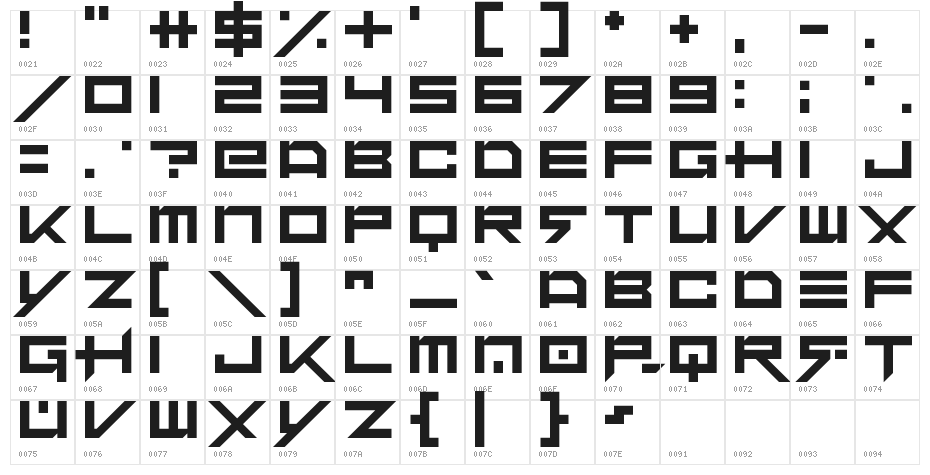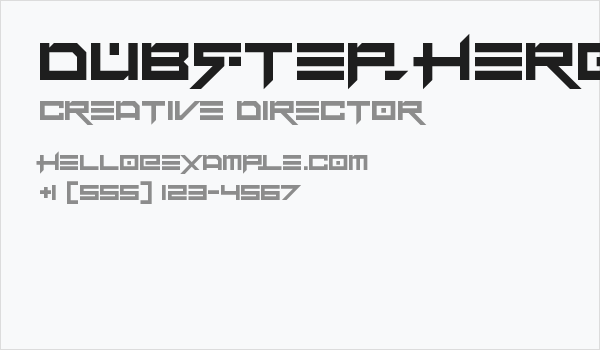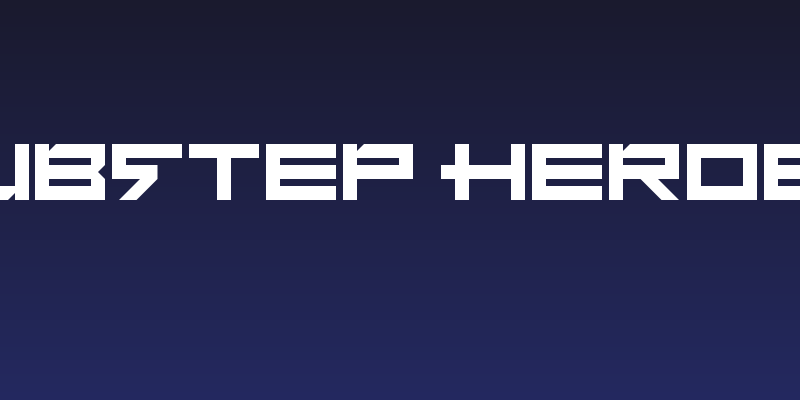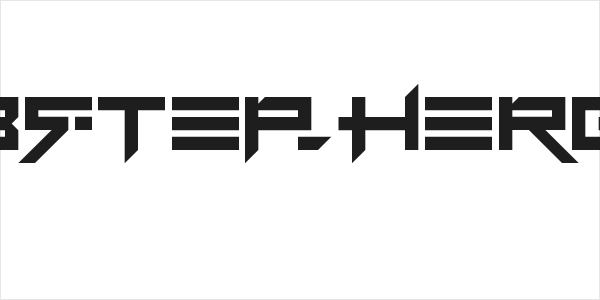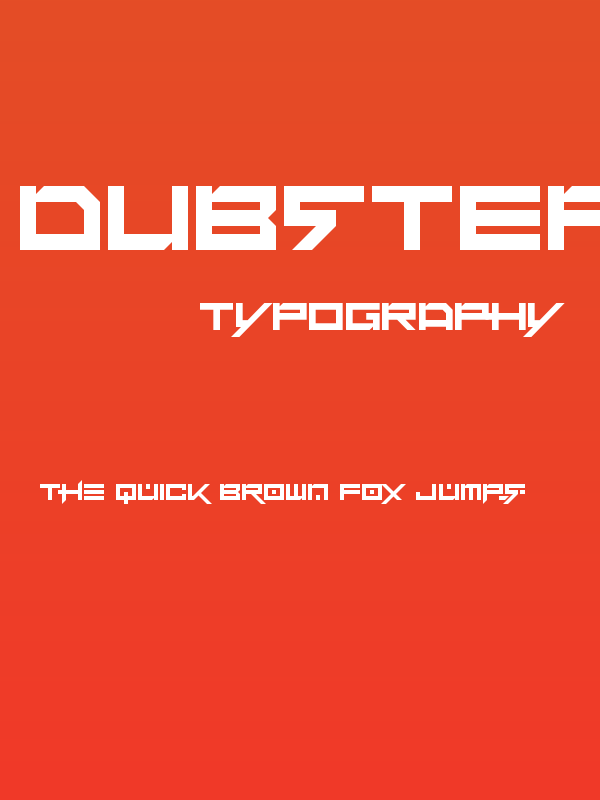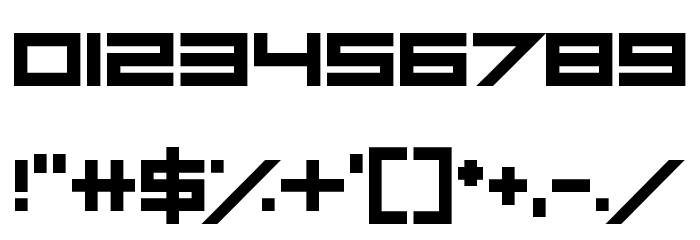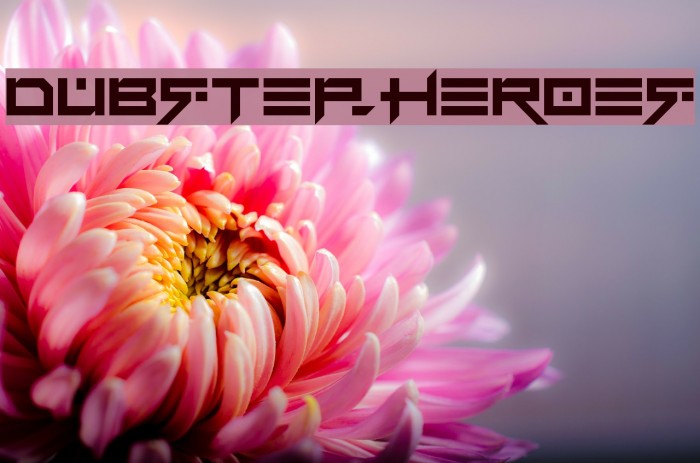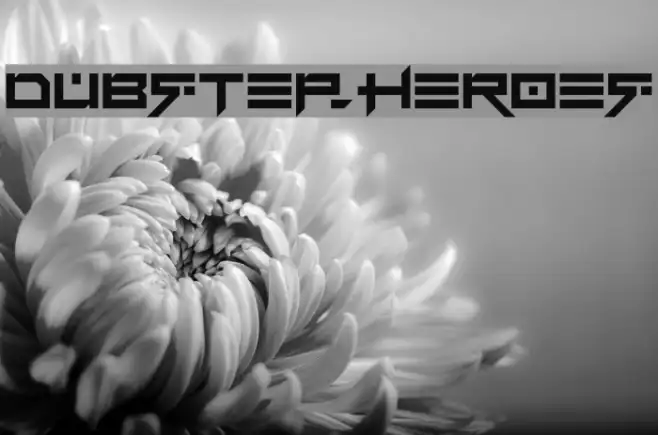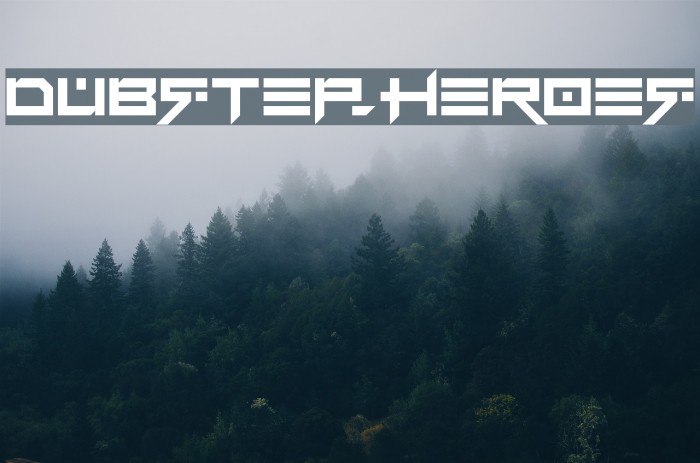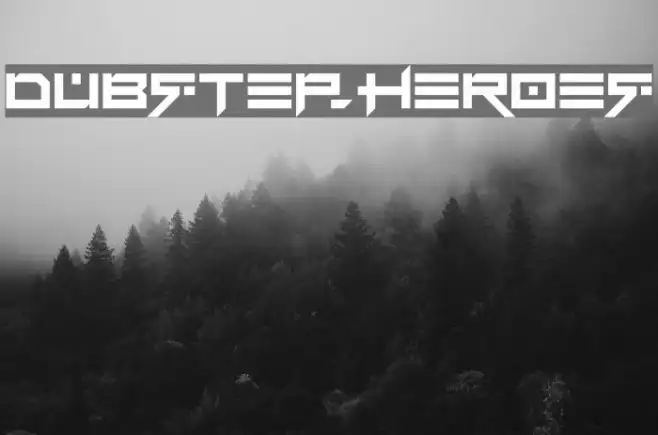
Dubstep heroes Font
Dubstep heroes Description
This font exhibits a bold, geometric style with sharp angles and a futuristic aesthetic. The characters are constructed with thick, block-like strokes, creating a sense of strength and modernity. The uppercase and lowercase letters maintain a consistent design, emphasizing angular cuts and straight lines. Numbers and special characters follow the same stylistic approach, ensuring uniformity across all glyphs. The overall appearance is striking and attention-grabbing, making it suitable for projects that require a modern and edgy look.
| Proposed Projects | Ideal for use in digital media, gaming titles, music album covers, and technology branding. |